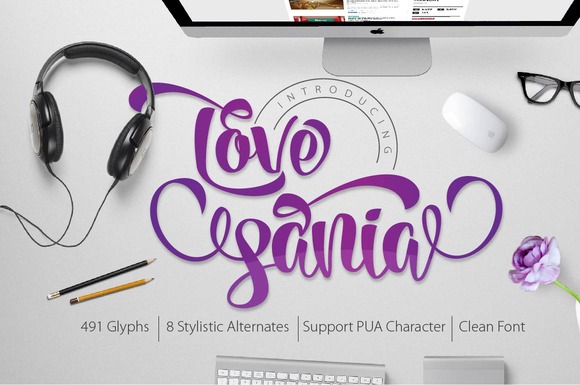
Behold, Love Sania Font, a captivating script typeface, the brainchild of Olexstudio, crafted to ignite your creative spirit. Its elegant curves and flowing strokes evoke a sense of timeless beauty, adding a touch of sophistication to any project.
Immerse yourself in a world of endless possibilities with Love Sania. Whether you're designing captivating logos, crafting heartfelt posters, or creating eye-catching T-shirts, this font is your perfect companion. Its versatility knows no bounds, making it ideal for labels, covers, and any project that yearns for a touch of elegance.
With Love Sania, your words take on a new life, dancing across the page with grace and charm. Its meticulously crafted glyphs enhance readability, ensuring your message shines through with clarity and impact.
Unleash your creativity and step into a world of typographic brilliance with Love Sania. Embrace the power of expression and watch as your designs captivate and inspire. Let your imagination soar, for Love Sania is the key to unlocking your creative potential.